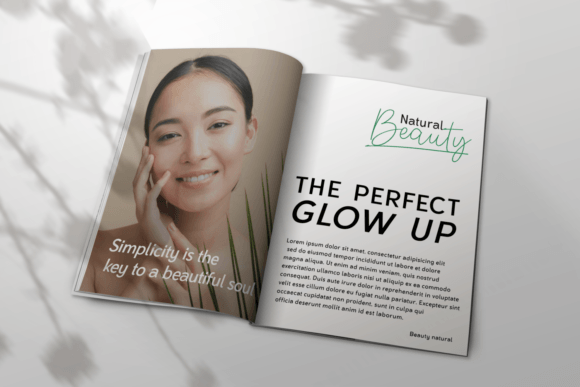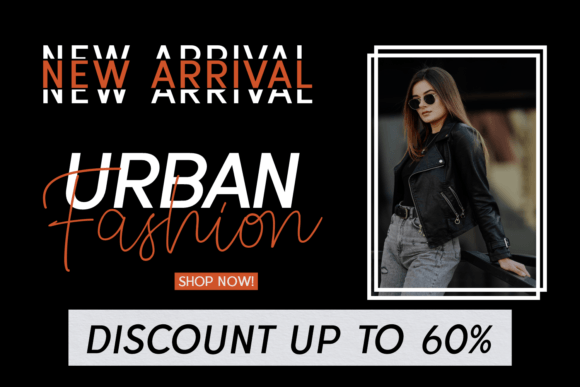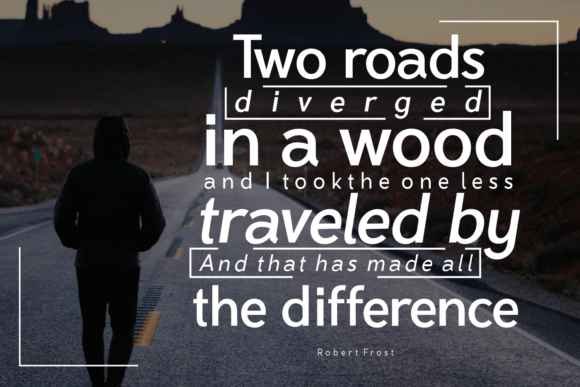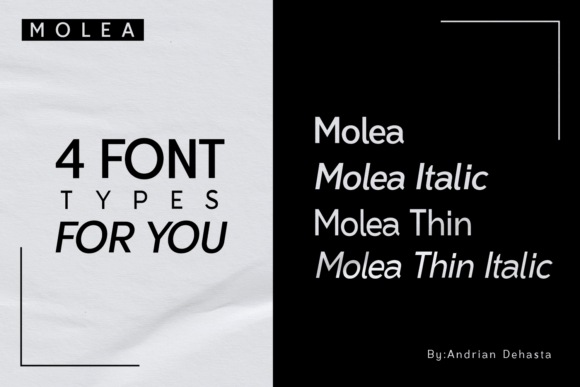
Introduction to Molea Font
Have you ever been in the middle of a creative project, staring at a blank canvas, and desperately searching for the perfect font to bring your vision to life? This is where the Molea Font comes in – a stunning sans serif font that exudes elegance and modernity, making it the ultimate design resource for any creative endeavor.
| 👤 Author | Andrian Dehasta |
Whether you’re working on a book cover, magazine article, social media post, or invitation, the Molea Font is sure to elevate your design to the next level. Its minimalist and clean vibe provides a transparent background that allows your message to shine through, making it the perfect choice for any high-quality design project.
Key Features of Molea Font
- High-quality, unique design perfect for creative projects and artistic expressions
- Designed with a transparent background, allowing for versatile and flexible use in creative projects
- Features a high-resolution design (up to 1024×1024 pixels) for crisp and clear display
- Supports multiple languages and is ideal for use in various creative projects, from branding to publishing
Honest Review: Molea Font
I recently had the chance to work with the Molea Font, a popular design resource for creative projects. Overall, I was impressed with its versatility and ease of use.
- ✨ High-quality design: The Molea Font features a clean, modern aesthetic that looks great on a transparent background.
- ✨ Customization: The font is highly customizable, allowing me to adjust the size, color, and style to suit my design needs.
- ⚠️ Limited language support: Unfortunately, the Molea Font only supports a limited number of languages, which may be a drawback for designers working on international projects.
- ⚠️ Not ideal for small text: While the font looks great in larger sizes, it can be difficult to read when used in small text sizes.
Overall, I’m impressed with the Molea Font’s design and versatility. While it may have some limitations, it’s a great resource for designers working on creative projects. With a little planning and customization, it can be a valuable addition to any design toolkit.
Molea Font
Using Molea Font in Various Platforms
Tips for Getting the Most Out of Molea Font
Use Molea Font on a transparent background to create a clean and modern look. Experiment with different font sizes and colors to add visual interest to your design.
Molea Font is perfect for creating logos, branding materials, and marketing materials. Its unique style makes it ideal for creative projects that require a touch of sophistication and elegance.